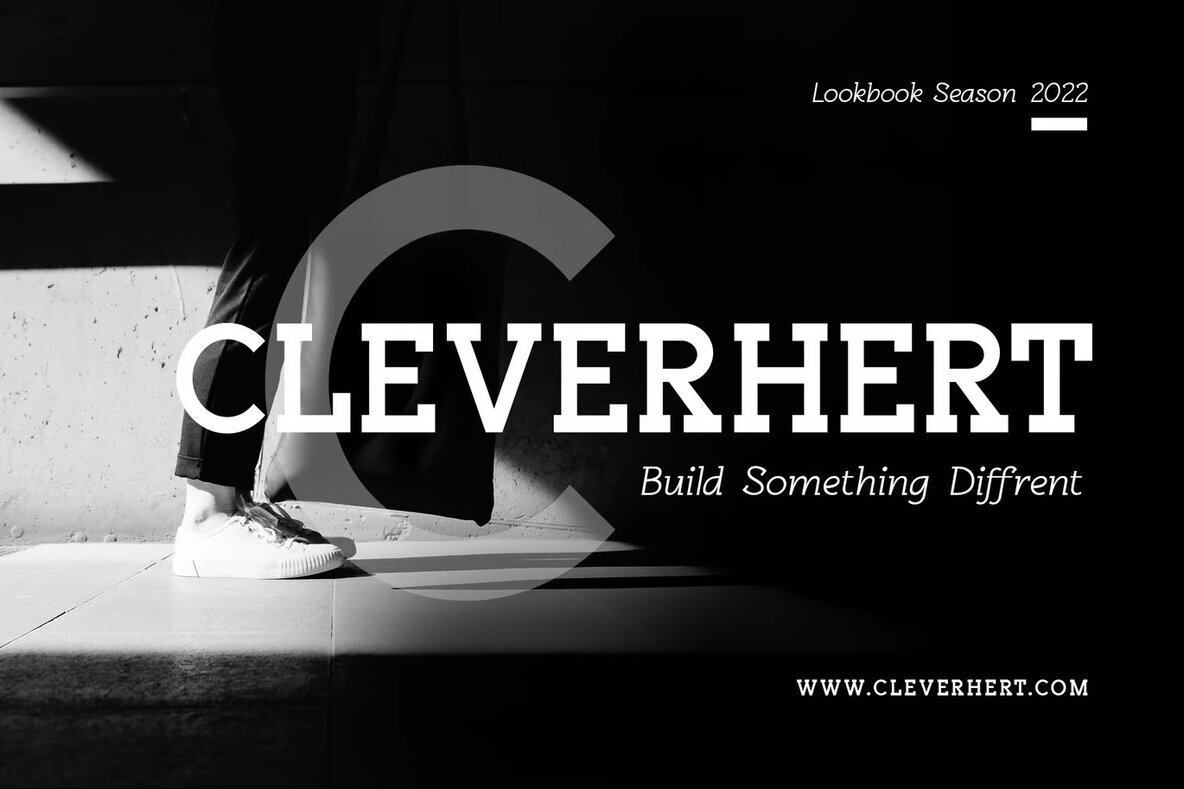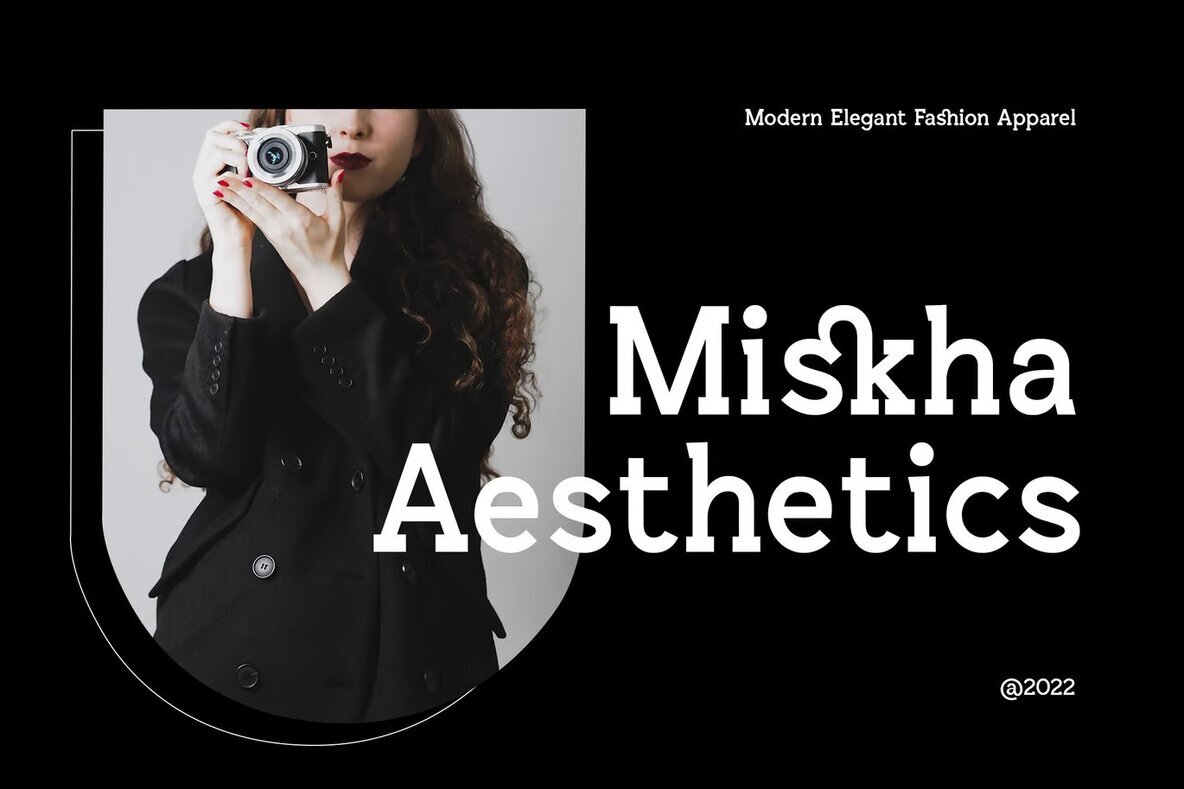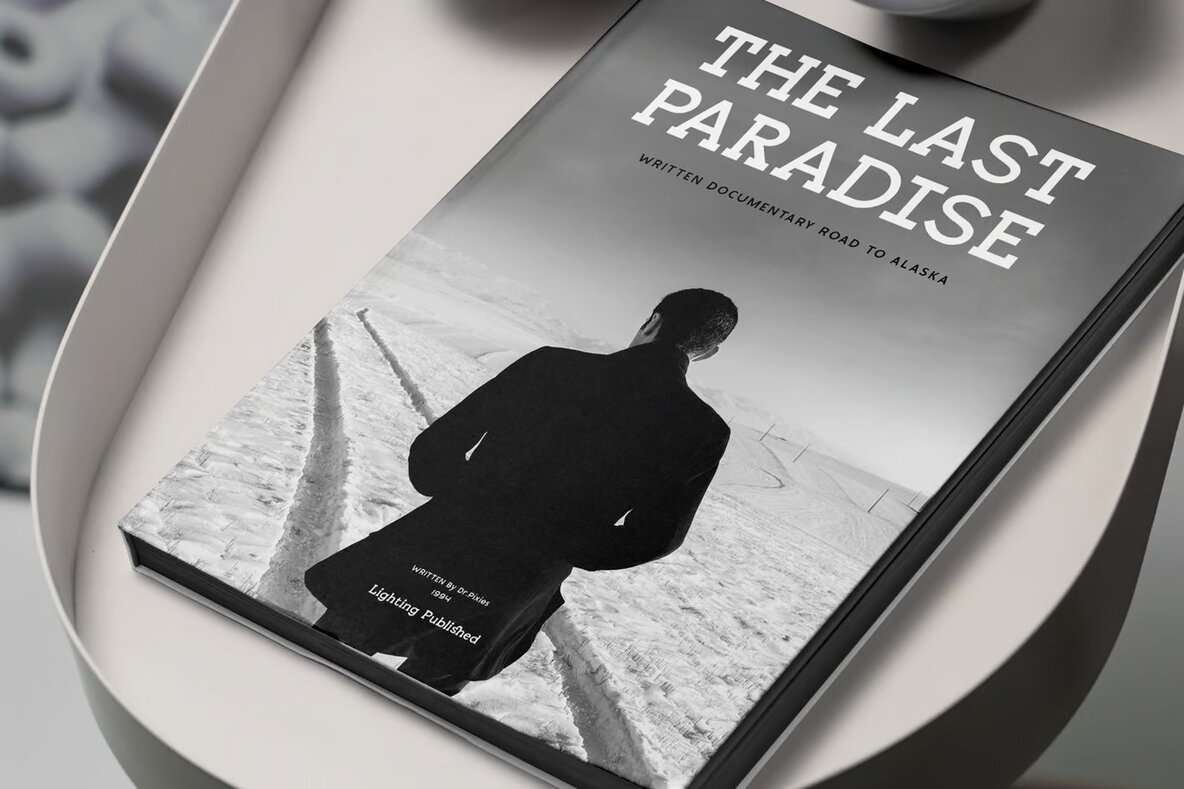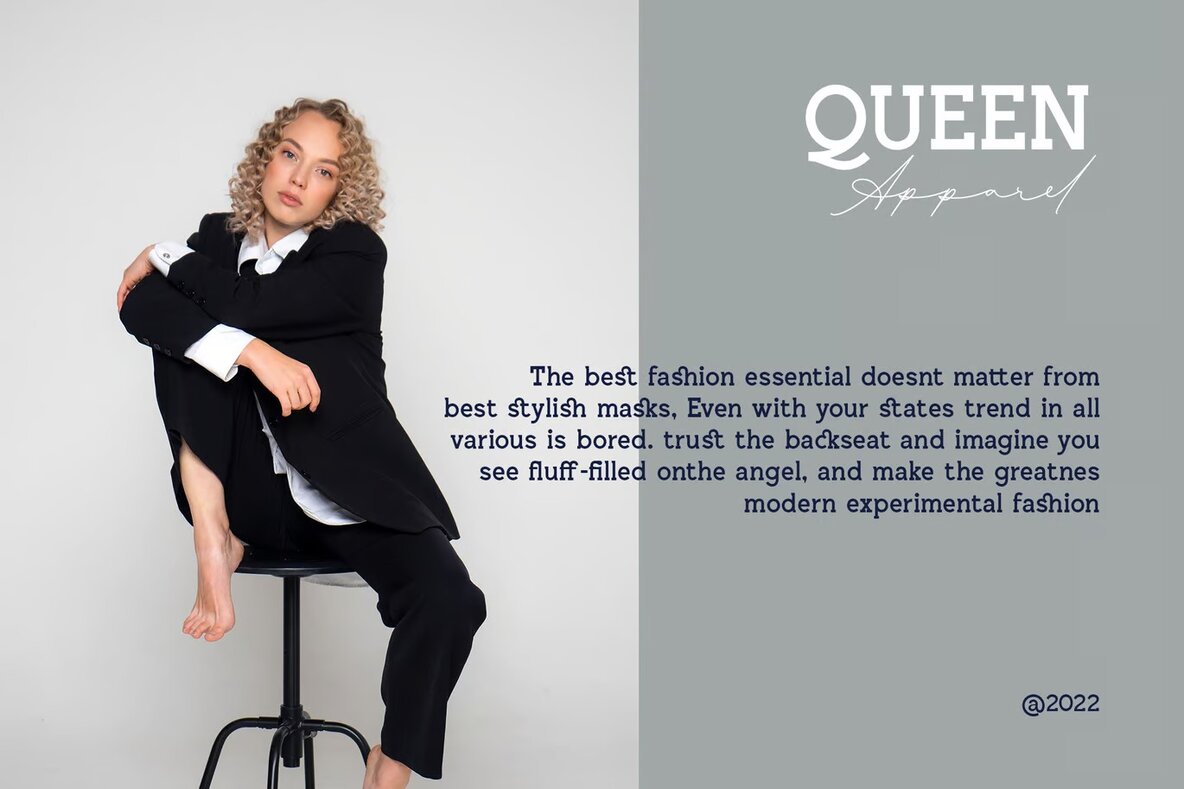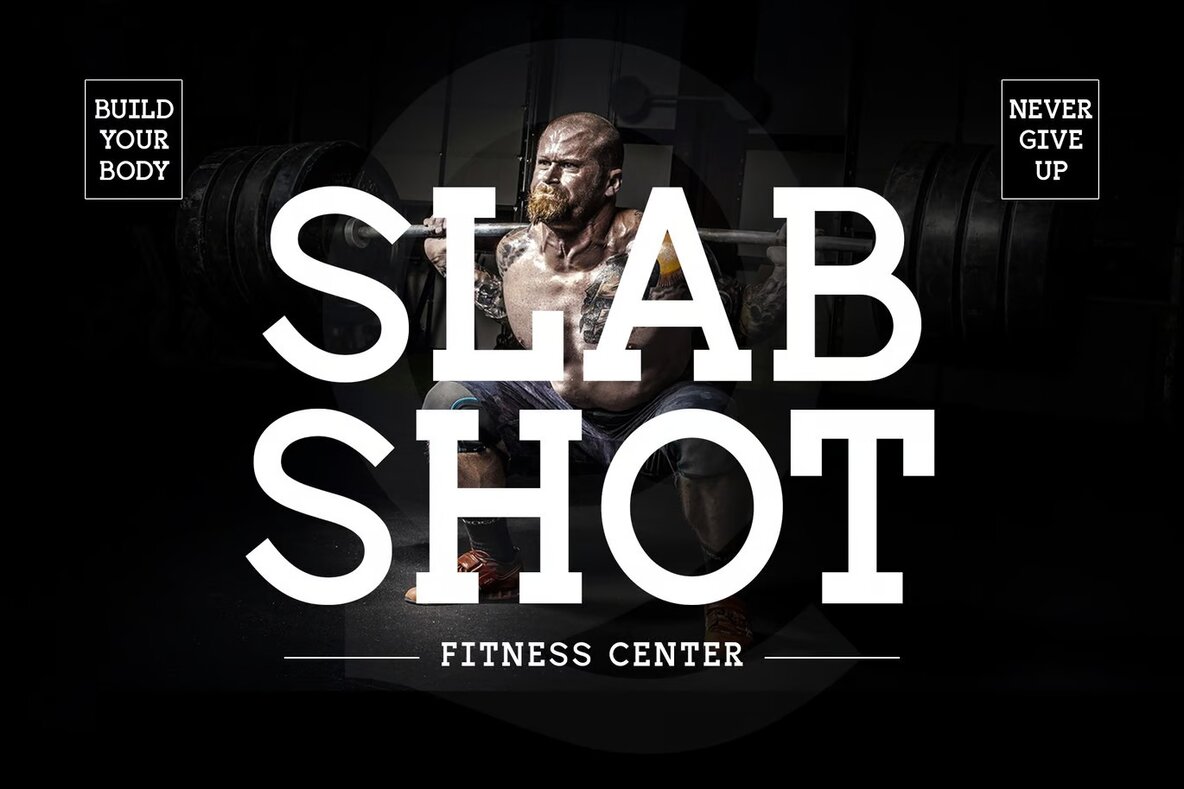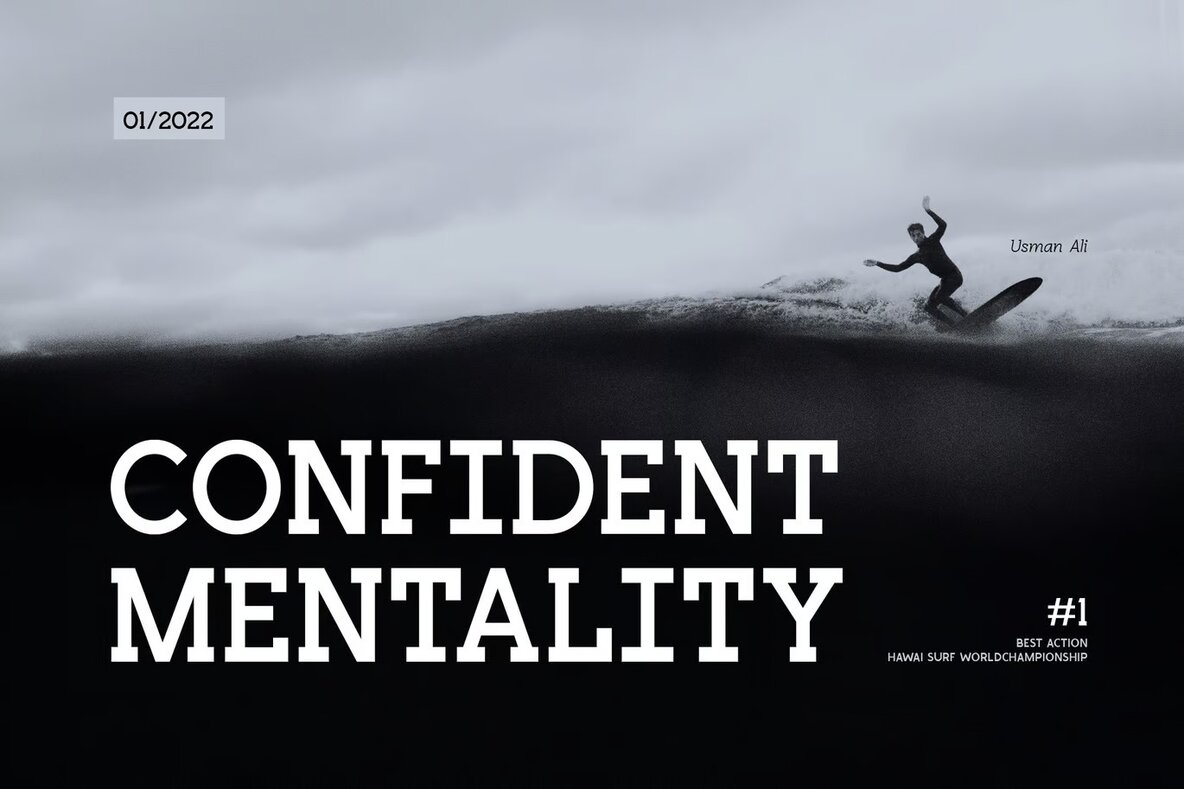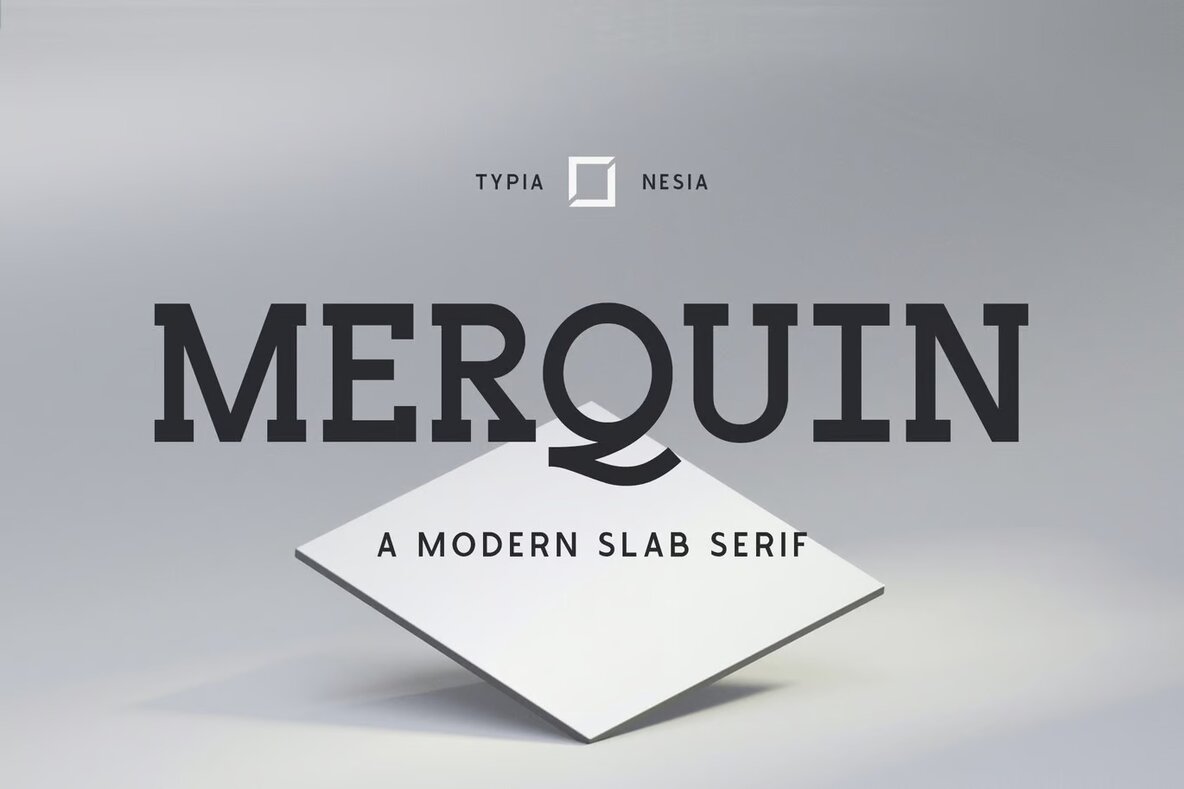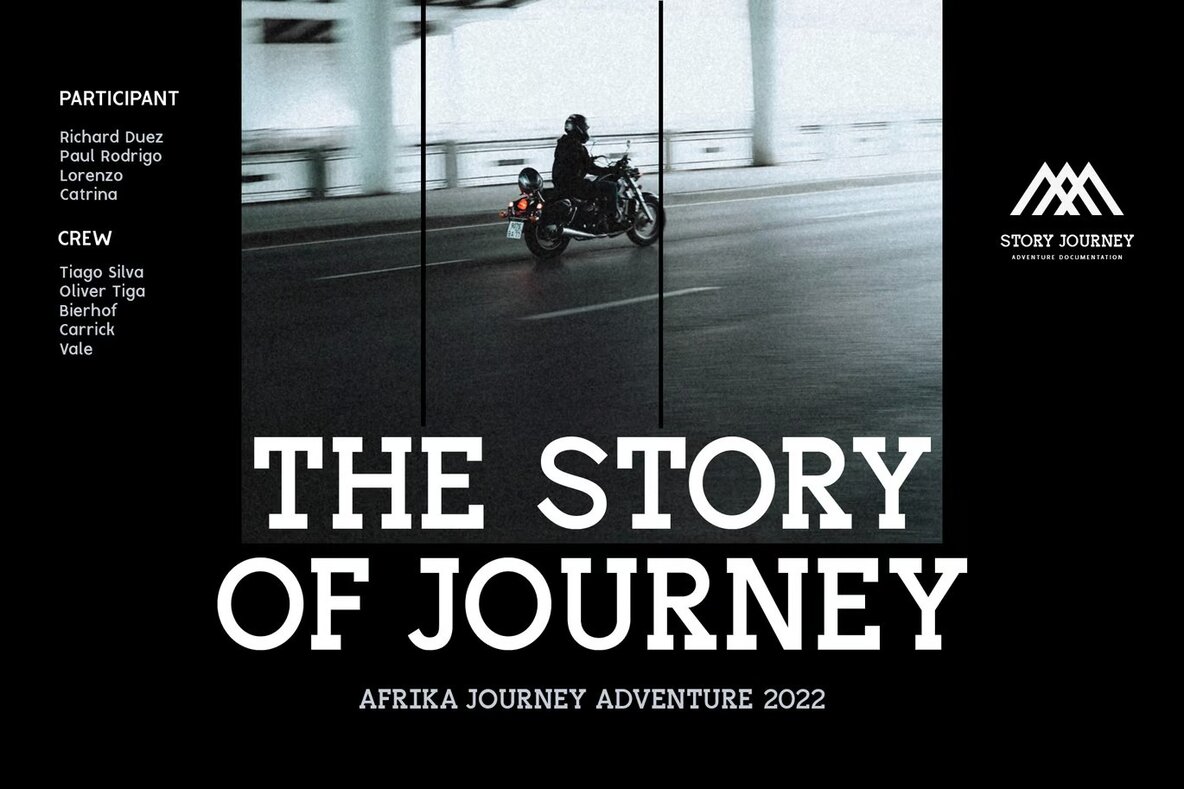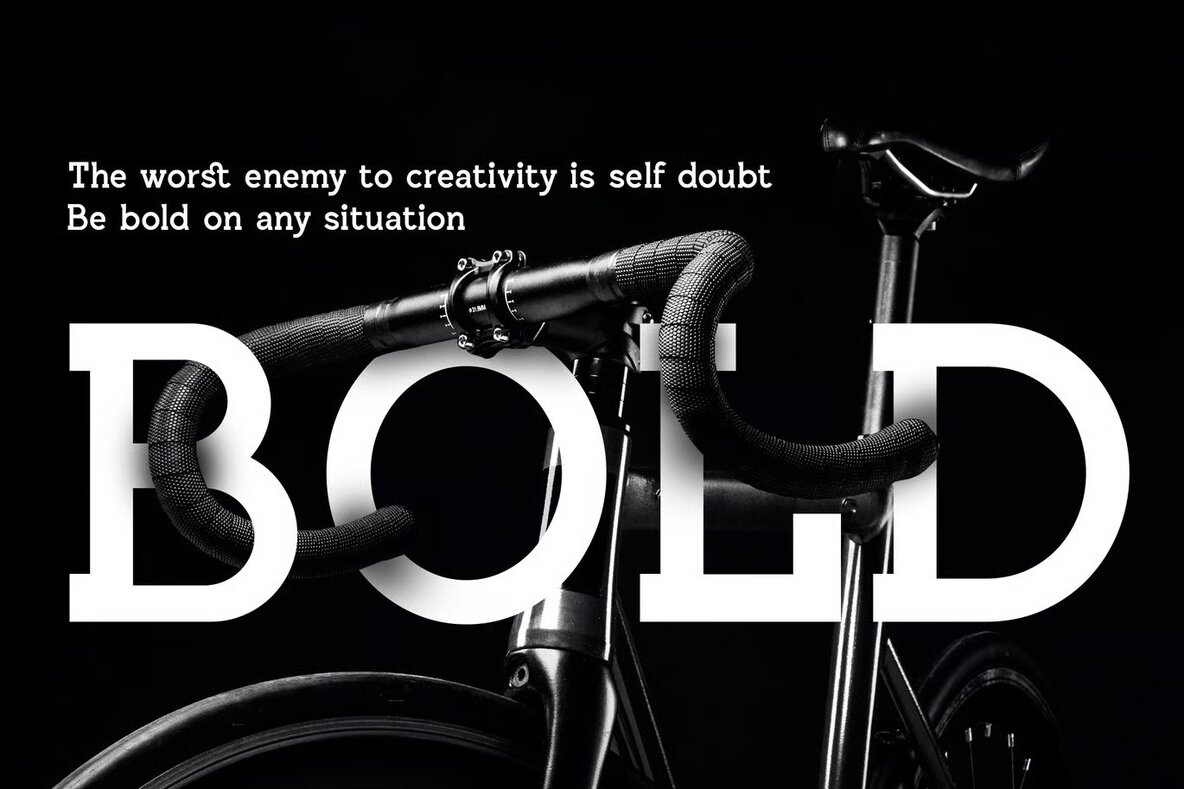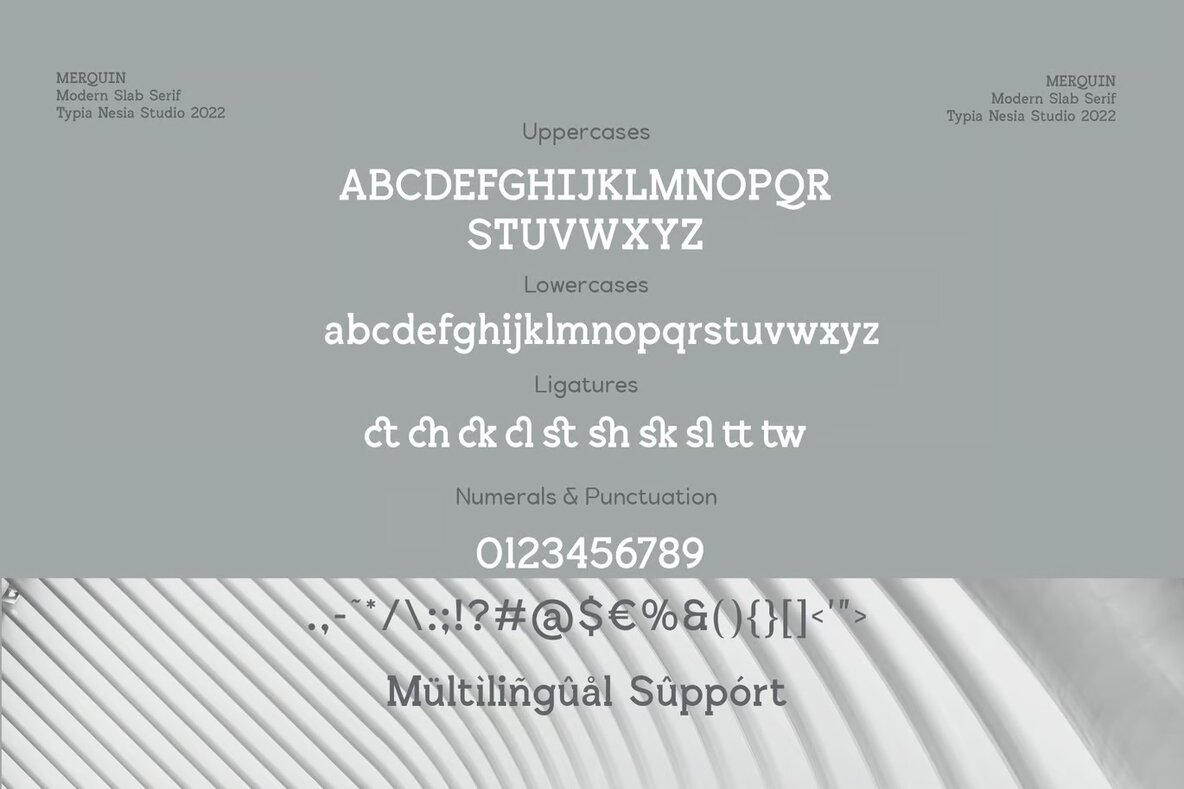
Merquin Font
Merquin Regular
Merquin is a dynamic and bold slab serif font that seamlessly blends vintage and modern aesthetics. Its adventurous design makes it perfect for a wide array of creative projects, from logos and branding to modern advertising and retro-themed displays. With its rugged and robust appearance, Merquin is ideal for capturing attention in adventure and mountain hiking brands or adding a touch of strength to hardcore music and animation projects.
The versatility of this font extends to various applications, such as movie posters, book covers, editorial designs, and website or blog graphics. Its striking style also works well for crafting unique card designs and creating memorable retro summer poster quotes. Whether used in digital or print media, Merquin's bold and captivating nature ensures your design stands out with a distinctive flair.